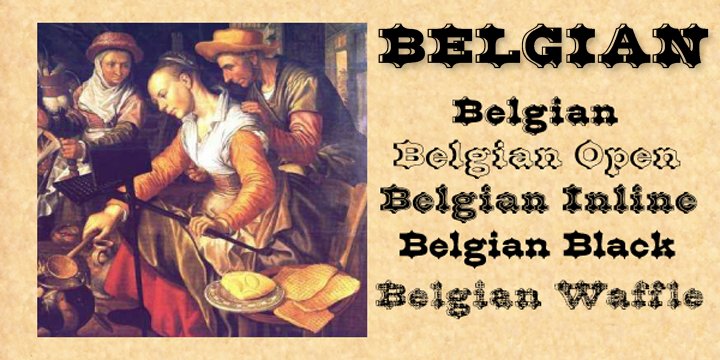
Belgian is a revival of an old type font from the Bruce Type Foundry of New York, Belgian was first designed as a caps-only font in the 1860s with the lowercase added in 1867.
New to this classic font are the Black, Open, Inline and Distressed versions.
Also new to Belgian is the addition of a Greek character set.